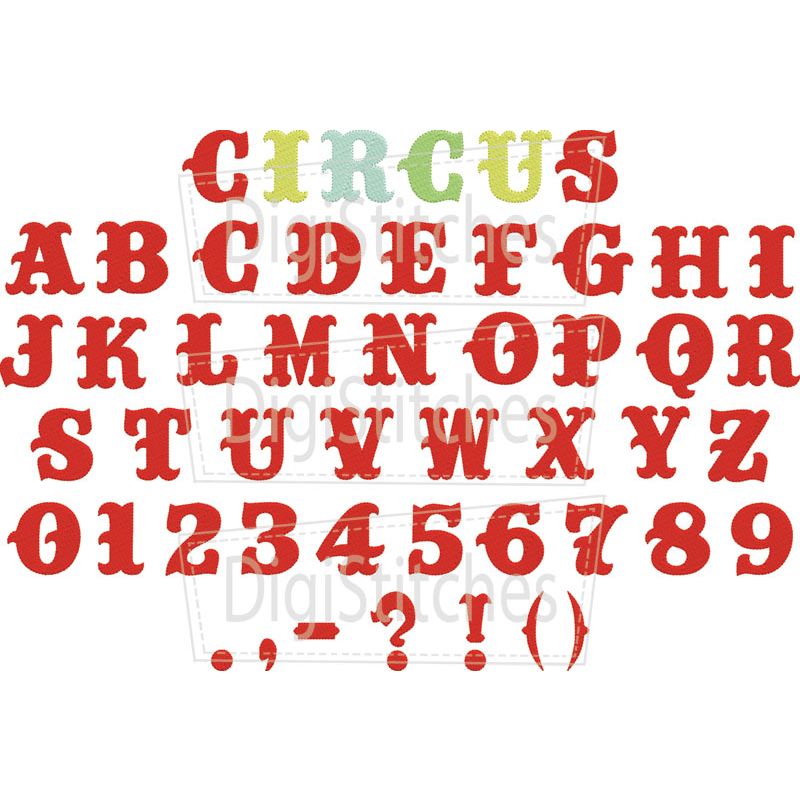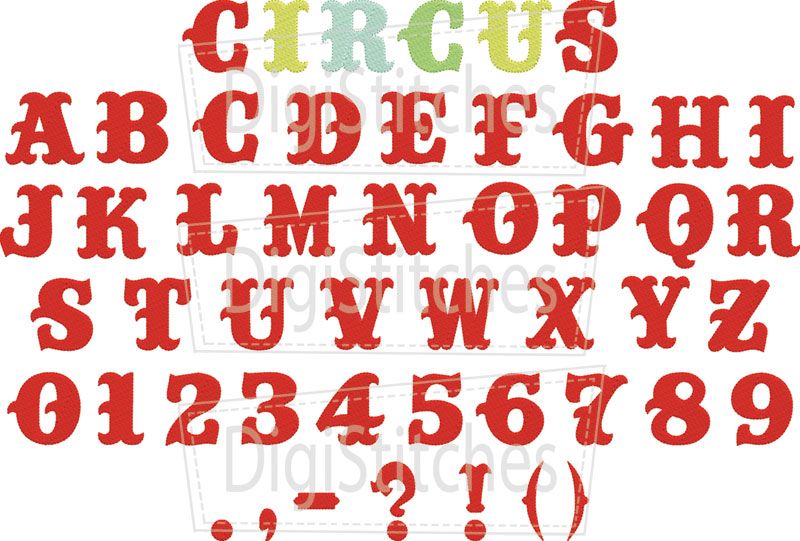
Circus Embroidery Font
Circus embroidery font is perfect for all of your "under the big top" Circus and Western themed projects.
Featuring bold letters that really stand out on t-shirts and projects.
Upper Case letters A thru Z, numbers 0-9 and punctuation as shown. Please see the description below for additional design information.